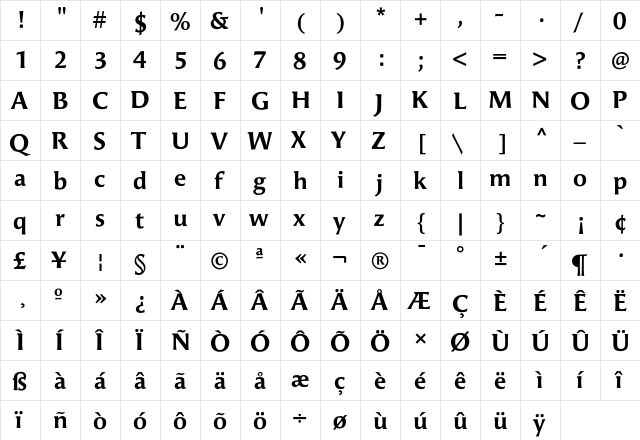
Angie Bold
Design Context for Angie Typeface
Angie takes a measured approach to typography — its balanced proportions and neutral character make it a reliable workhorse for both digital and print work. Its bold stroke weight gives it real presence on the page.